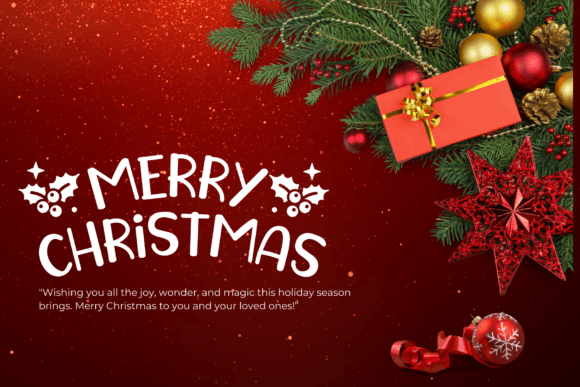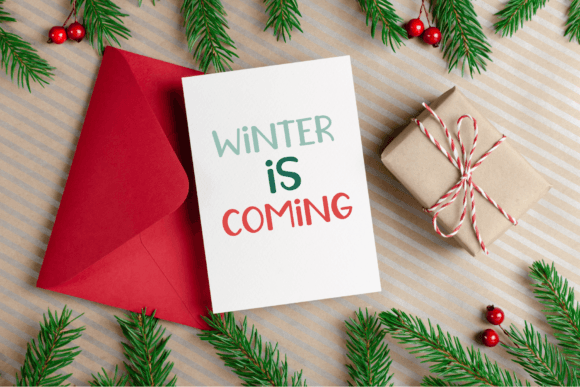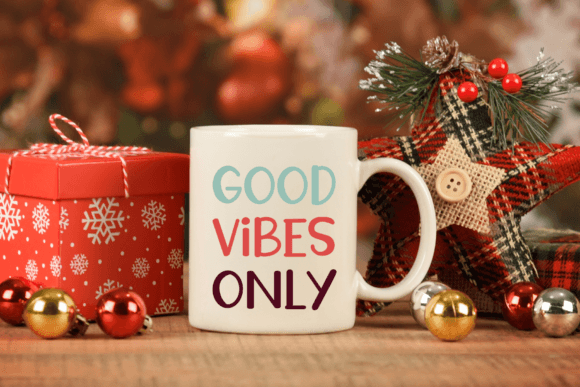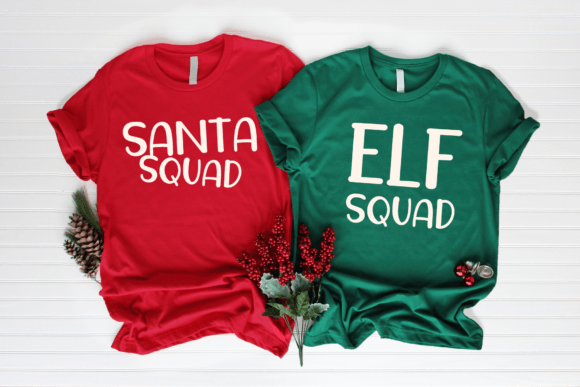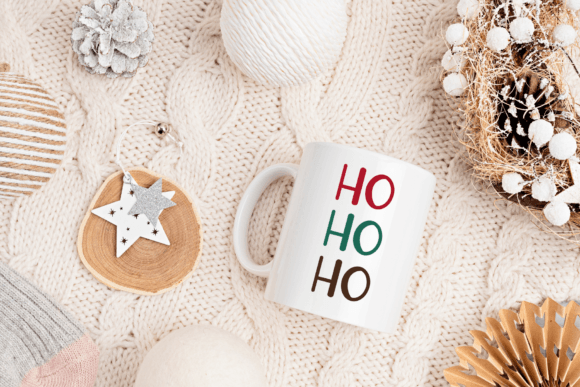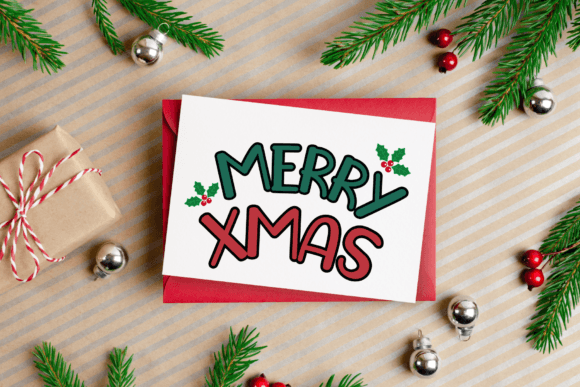
Introducing Blitzen Font: The Ultimate Choice for Creative Projects
Are you tired of using the same old fonts for your designs? Look no further! Blitzen Font is here to revolutionize your creative projects with its playful and authentic touch. This fun handwritten font is perfect for designers, crafters, and bloggers who want to add a personal touch to their work.
The Characteristics of Blitzen Font
Blitzen Font is a unique and charming font that embodies playfulness and authenticity. Its handwritten style gives it a personal and friendly feel, making it perfect for a wide range of projects. Whether you’re working on a blog post, logo, branding, ad, invitation, greeting card, planner, photo album, or decoration, Blitzen Font is the perfect choice.
One of the best things about Blitzen Font is its versatility. It can be used for various design projects, including:
- Blog posts: Add a personal touch to your blog posts and make them stand out from the crowd.
- Logos and branding: Create a unique and memorable logo for your brand with Blitzen Font.
- Ads: Make your ads more engaging and attention-grabbing with this fun font.
- Invitations: Create beautiful and personalized invitations for special occasions.
- Greeting cards: Add a touch of warmth and personality to your greeting cards.
- Planners and photo albums: Make your planners and photo albums more visually appealing with Blitzen Font.
- Decorations: Use Blitzen Font to create beautiful and unique decorations for parties, events, or your home.
Why Choose Blitzen Font?
So, why should you choose Blitzen Font for your projects? Here are just a few reasons:
- Playfulness: Blitzen Font adds a playful touch to your designs, making them more engaging and fun.
- Authenticity: This font has a genuine and authentic feel, making it perfect for designers and crafters who want to add a personal touch to their work.
- Easy to read: Despite its playful style, Blitzen Font is easy to read, making it perfect for body text and headlines.
- Highly versatile: As mentioned earlier, Blitzen Font can be used for a wide range of projects, making it a great addition to your font collection.
How to Use Blitzen Font
- Experiment with different sizes and colors: Play around with different sizes and colors to find the perfect combination for your project.
- Pair it with other fonts: Blitzen Font pairs well with other fonts, so don’t be afraid to experiment with different combinations.
- Use it consistently: Use Blitzen Font consistently throughout your project to create a cohesive look.
In conclusion, Blitzen Font is a fun and versatile font that’s perfect for designers, crafters, and bloggers who want to add a personal touch to their work. Its playful and authentic style makes it perfect for a wide range of projects, from blog posts and logos to invitations and decorations. With its ease of use and high versatility, Blitzen Font is a great addition to any font collection.